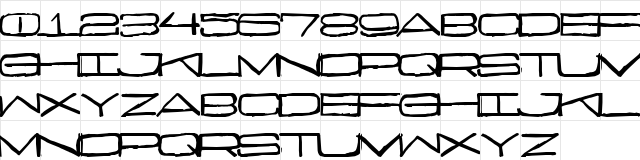
Curmudgeonly Regular Font Preview
Curmudgeonly Regular
Design Context for Curmudgeonly Typeface
Curmudgeonly is a composed and adaptable typeface that performs quietly and consistently across a wide range of design contexts.